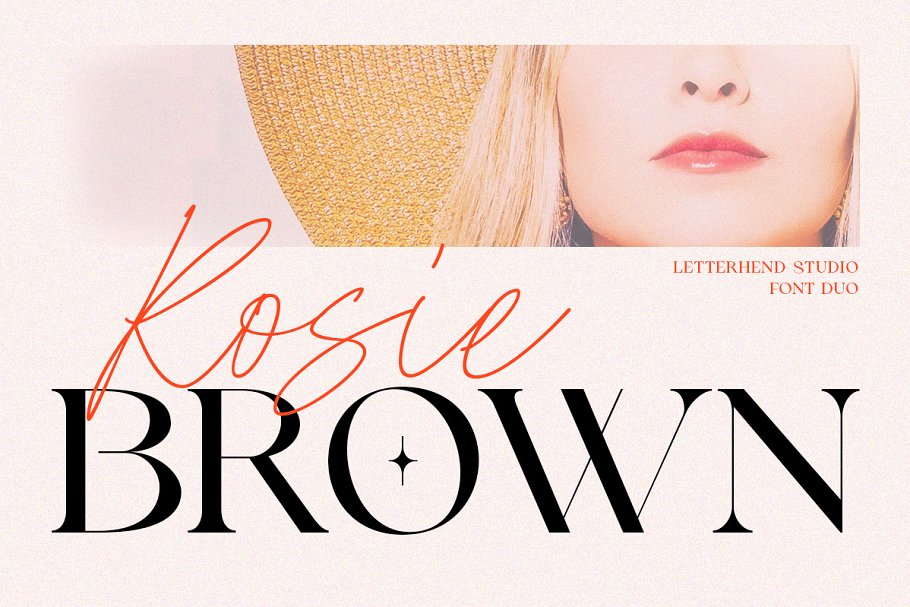
Are you looking for a font that brings modernity and casualness together in a perfect match? Look no further than Rosie Brown - Font Duo, created by the talented Hendry Juanda.
Rosie Brown is a high-contrast serif font combined with a natural handwriting script that will elevate any project you use it for. Whether you need a typeface for a headline, logotype, apparel, invitation, branding, packaging, advertising, or your email signature, Rosie Brown is the versatile font that will make your design stand out.
This font duo includes two fonts, the serif and script fonts, with uppercase and lowercase letters, numbers, punctuation, and multilingual support. It also features alternates and ligatures, as well as being PUA encoded. To make the most of all the variations available, we highly recommend using a program that supports OpenType features and Glyphs panels like many of Adobe apps and Corel Draw.